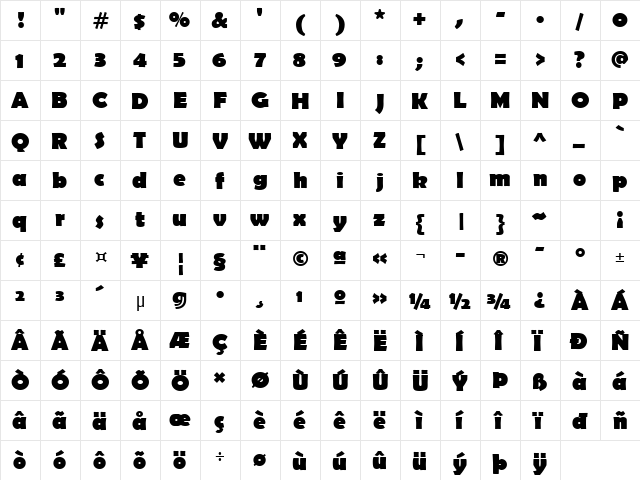
Berlin Sans FB Bold
| Foundry | The Font Bureau, Inc. |
| Designer | David Berlow |
Design Context for Berlin Sans FB Typeface
Berlin Sans FB takes a measured approach to typography — its balanced proportions and neutral character make it a reliable workhorse for both digital and print work. The heavy weight commands attention and anchors typographic hierarchies.